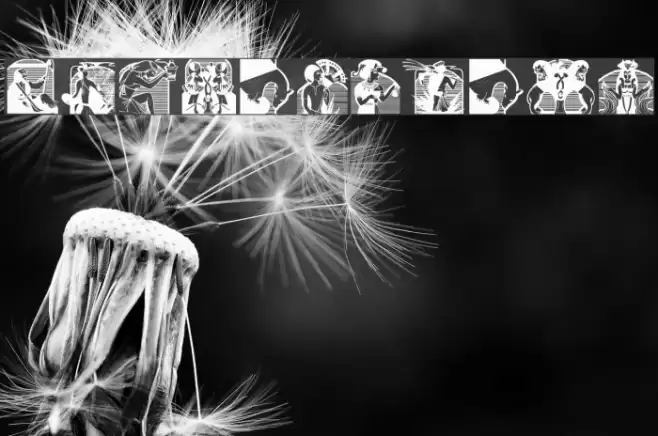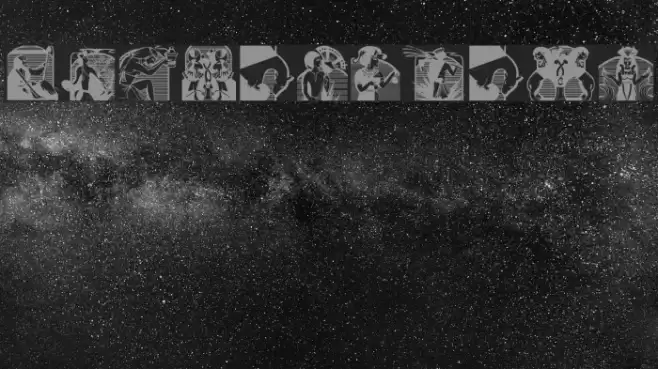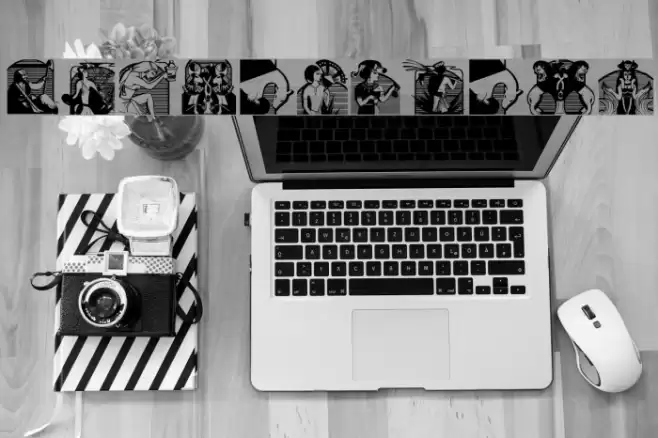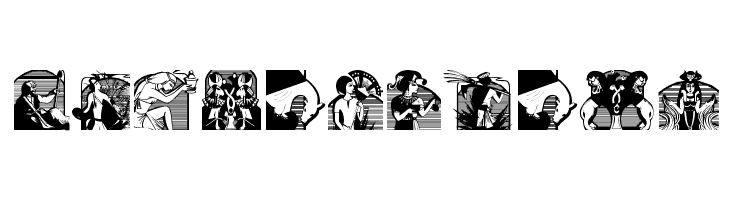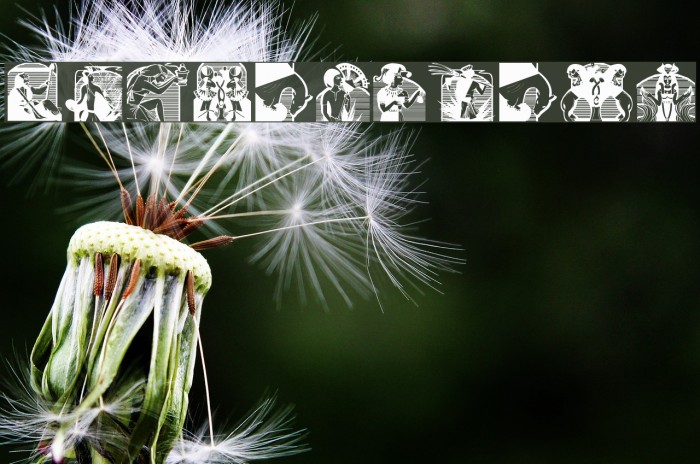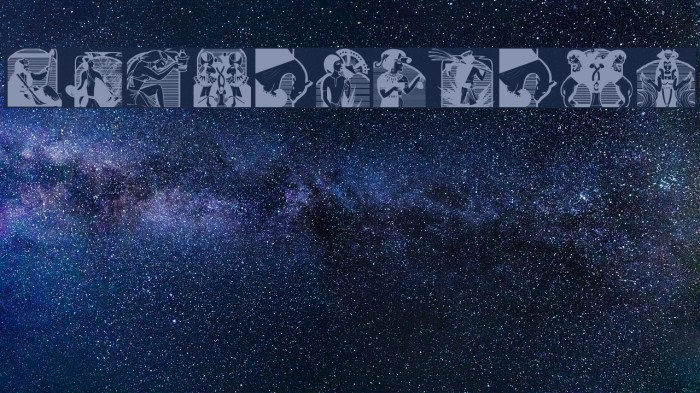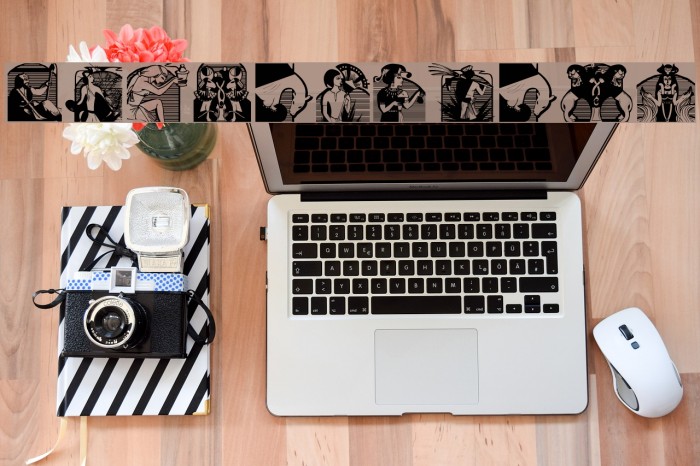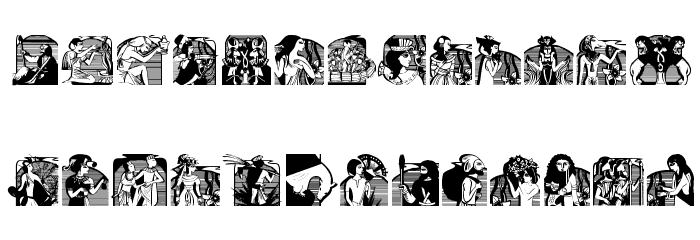
AncestorsMK07 Font
AncestorsMK07 Description
This font is a unique decorative style that incorporates intricate illustrations within each character. Each letter is adorned with detailed, artistic depictions of historical or mythical figures, creating a visually rich and engaging design. The characters are bold and striking, with each letterform serving as a canvas for the elaborate artwork. This font is not designed for readability in body text but rather for artistic expression and visual impact. The illustrations are monochromatic, adding a classic and timeless feel to the overall design. The font is ideal for projects that require a strong visual presence and a touch of historical or mythical storytelling.
A decorative font featuring intricate illustrations within each character from Uncategorized fonts.
- Proposed Projects: Ideal for posters, album covers, book titles, or any project needing a strong visual impact and artistic flair.